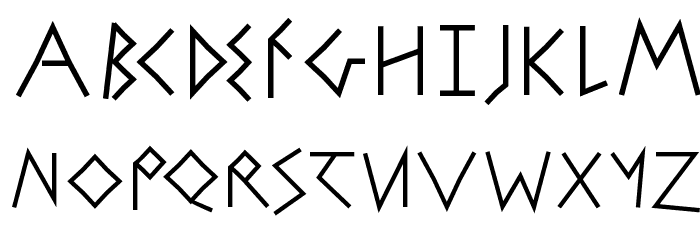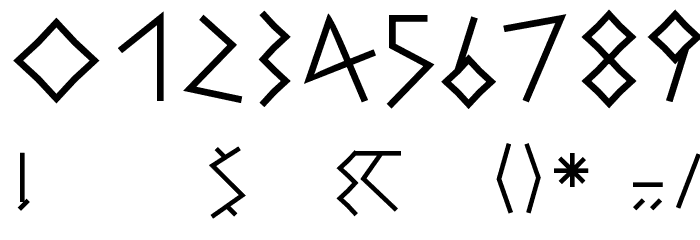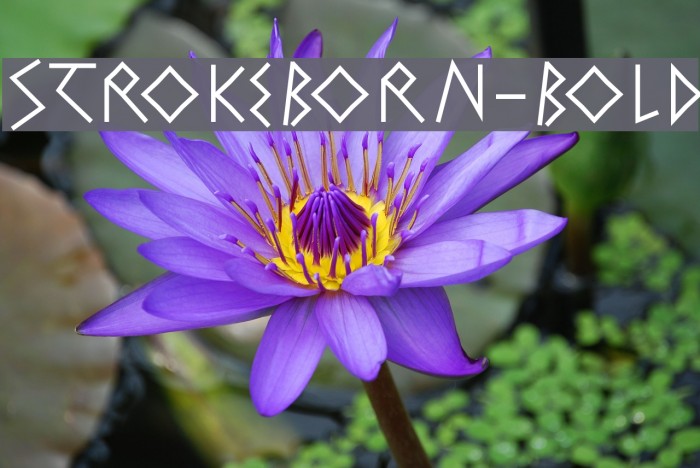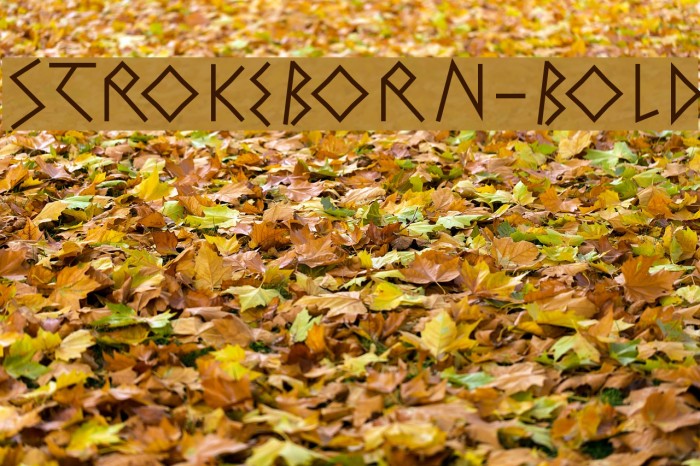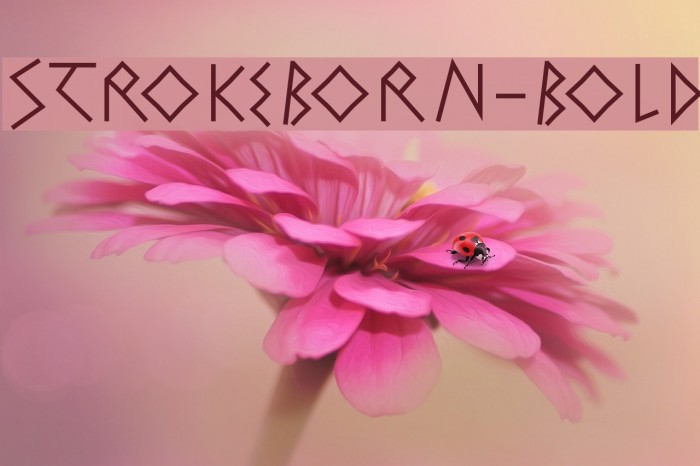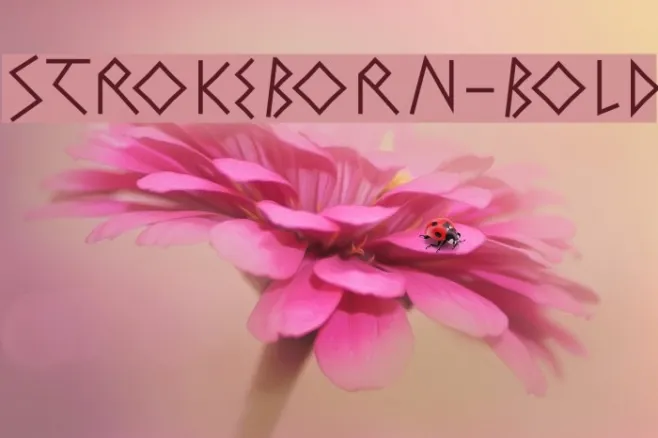
StrokeBorn-Bold Font
This font features a bold and angular design, reminiscent of ancient runic inscriptions. The characters are constructed with straight lines and sharp angles, giving it a geometric and structured appearance. The uppercase and lowercase letters maintain a consistent style, with a unique twist on traditional letterforms. Numbers and special characters follow the same angular theme, ensuring uniformity across all glyphs. The font's distinct style makes it stand out, ideal for projects that require a strong and unconventional aesthetic.
A bold, angular font with a geometric, runic-inspired design.
- Proposed Projects: This font is perfect for fantasy-themed projects, video game titles, movie posters, or any creative work that requires a bold and striking typeface.
- Overall Style: Modern, Decorative